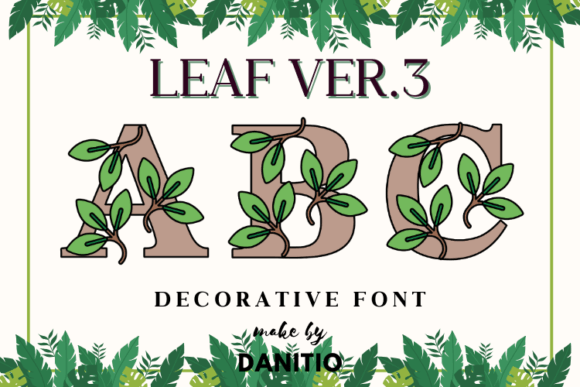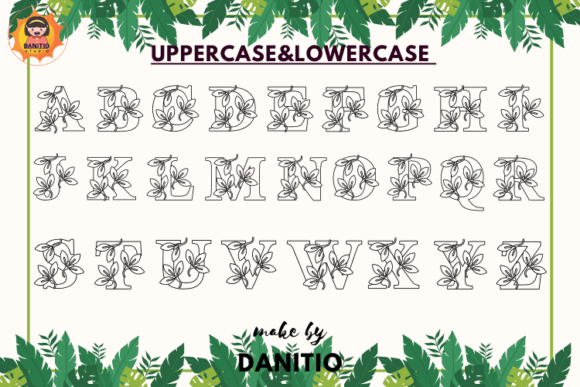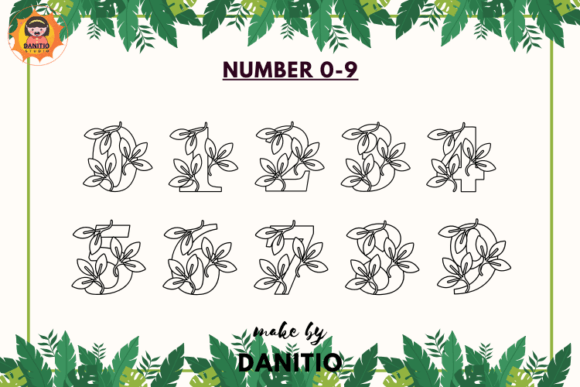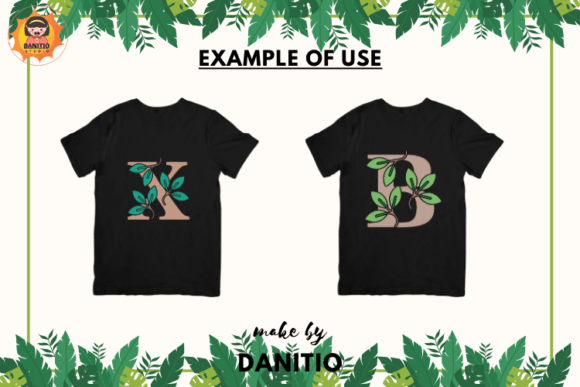
Leaf Ver.3 Font
About the Leaf Ver.3 Font
Welcome to the world of Leaf Ver.3 Font, a typeface that will inspire your next great project. Leaf Ver.3 is a beautiful and gentle decorative display font. It features two leaves decorating the letters causing cuteness and tenderness and creating a distinct style, making it suitable for key designs. Whether you use it for digital artifacts, presentations greeting cards, t-shirts, mugs, or tote bags it will be the perfect fit.
Leaf Ver.3’s playful, yet delicate nature makes it ideal for headlines, logos, short text on packaging, and social media graphics. Its decorative style shines in projects requiring a touch of whimsical charm, such as children’s products or branding for eco-conscious businesses. However, its intricate details make it unsuitable for body copy or UI elements where readability is paramount.
Pairing Leaf Ver.3 effectively depends on the desired effect. For a balanced, slightly more formal look, consider pairing it with a clean sans-serif like Montserrat or Lato. To enhance its playful character, a rounded sans-serif like Bebas Neue or a script font like Great Vibes could be used for secondary text.
Its overall personality is best described as friendly and approachable, with a touch of vintage charm. Avoid using it for projects demanding seriousness or sophistication; its decorative nature is best utilized where a lighthearted and inviting aesthetic is desired.